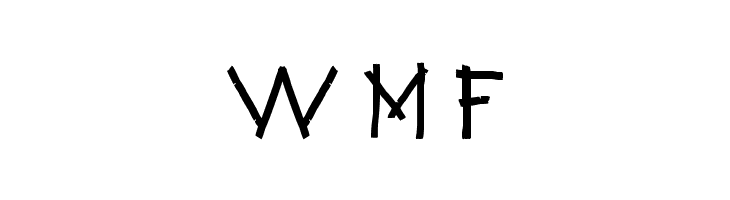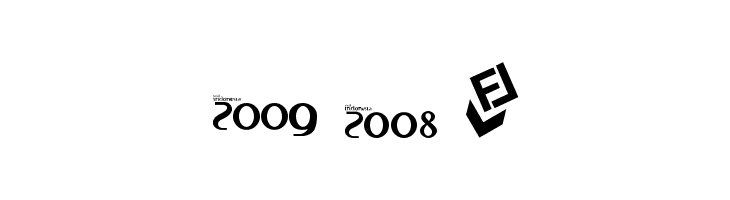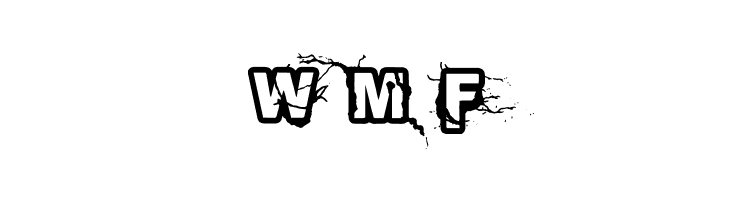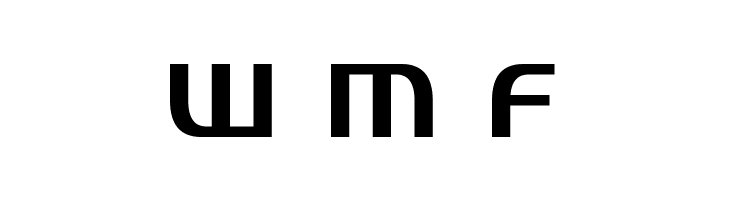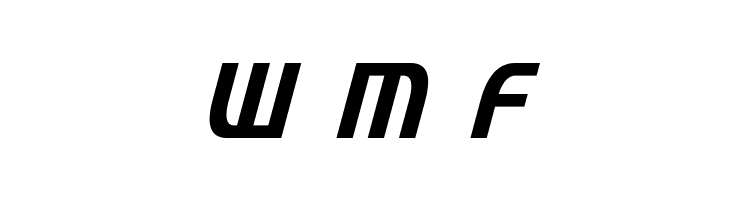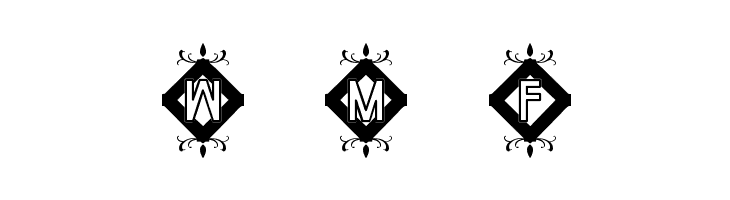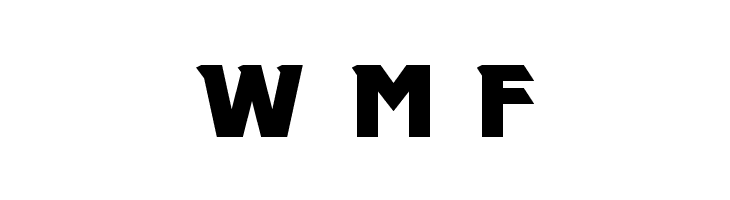
• Ideal Type
A lively and expressive handwritten font with fluid strokes.
• Imaki
A modern, geometric font with bold, uniform strokes and a sleek design.
• Imaki Bold
A bold, geometric font with a modern and impactful style.
• Imaki Condensed Bold Italic
A bold, italic, and condensed font with a modern and dynamic style.
• IndieSellout
A playful, hand-drawn font with a casual and artistic style.
• Indonesiana Version Alpha
• INF MarkerTK
A bold, hand-drawn marker-style font with a textured, informal appearance.
• INFECTED
A bold, distressed font with a grungy, cracked texture and jagged edges.
• InIcIaLeS St
A decorative font with geometric letters enclosed in ornate diamond shapes.
• Inquisition